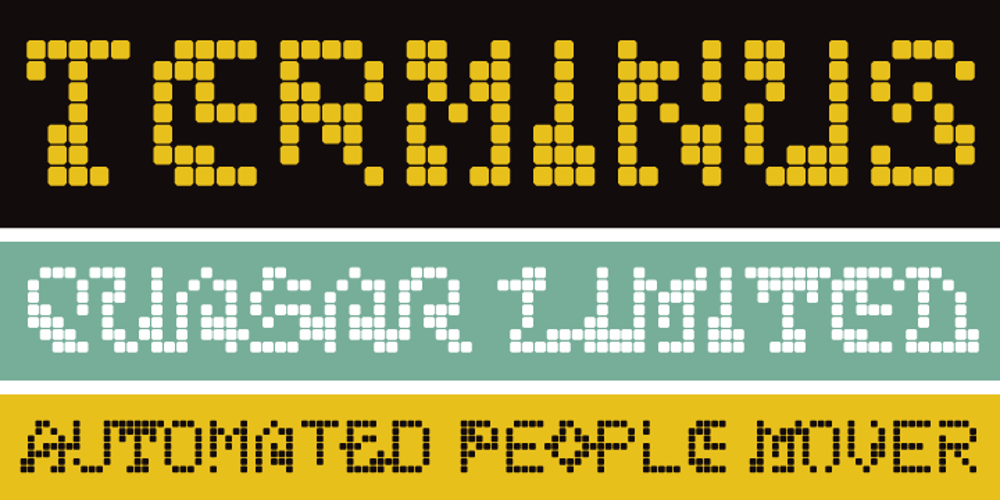
Terminus Font Family was designed by Kevin Dresser and published by Dresser Johnson. Terminus contains 1 styles and family package options. The Terminus typeface is an exploration of what occurs to letterforms when flip-disc display and variable-message signs begin to malfunction. Whether caused by analog or computer error, there is a mechanical beauty and randomness in the deterioration of the forms. Dresser’s wild take on this concept purposely pushes the limits of legibility along with incorporating historical bits and pieces from blackletter and uncial script forms into this modern digital grid. OpenType font features provide the user with four options to use the typeface. Simply load the default Terminus for a surprisingly legible breakdown of digital characters. Select “Contextual Alternates” for a random selection of altered forms from the 994 glyphs included in the font. With the Glyph Palette open, manually select from the five full character sets to create your own unique settings. Lastly, choose “Stylistic Alternates” for an extreme test of legibility. This setting combines characters from the default font with the most elaborate set of alternates and best exemplifies the organic disintegration of Terminus.